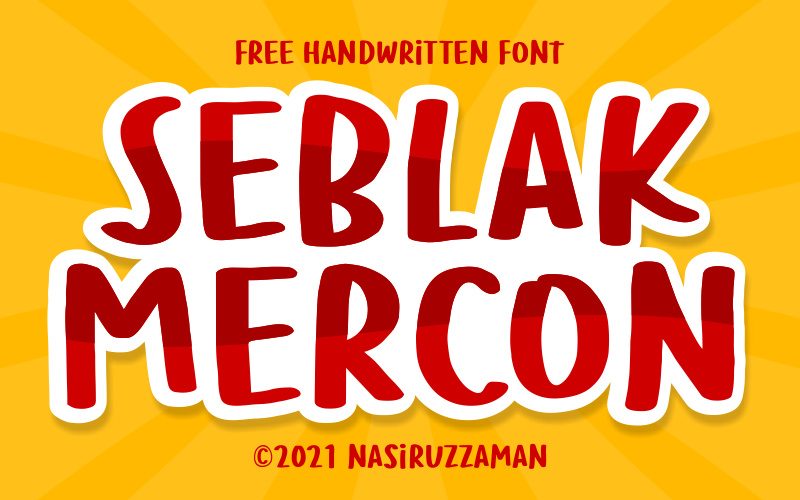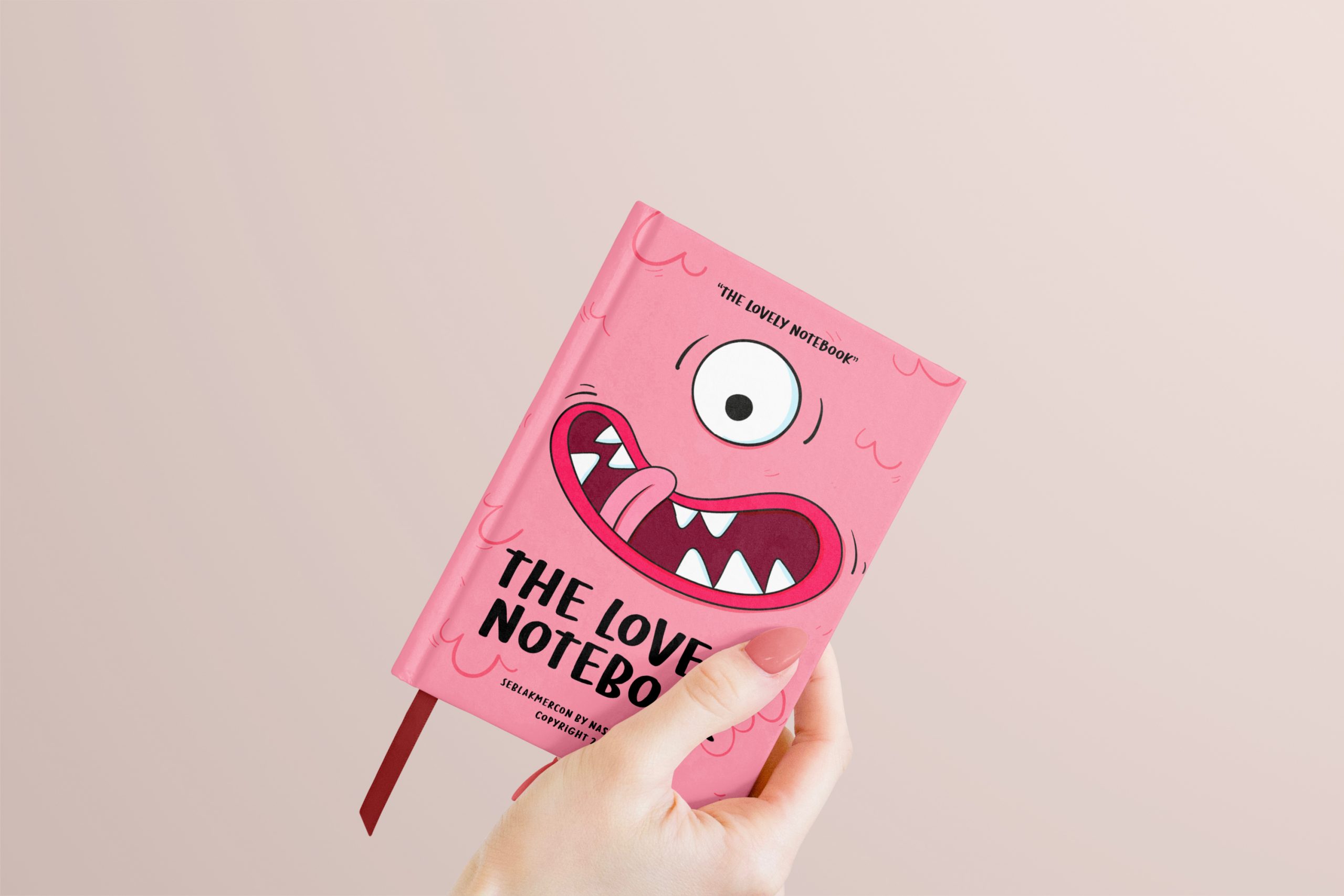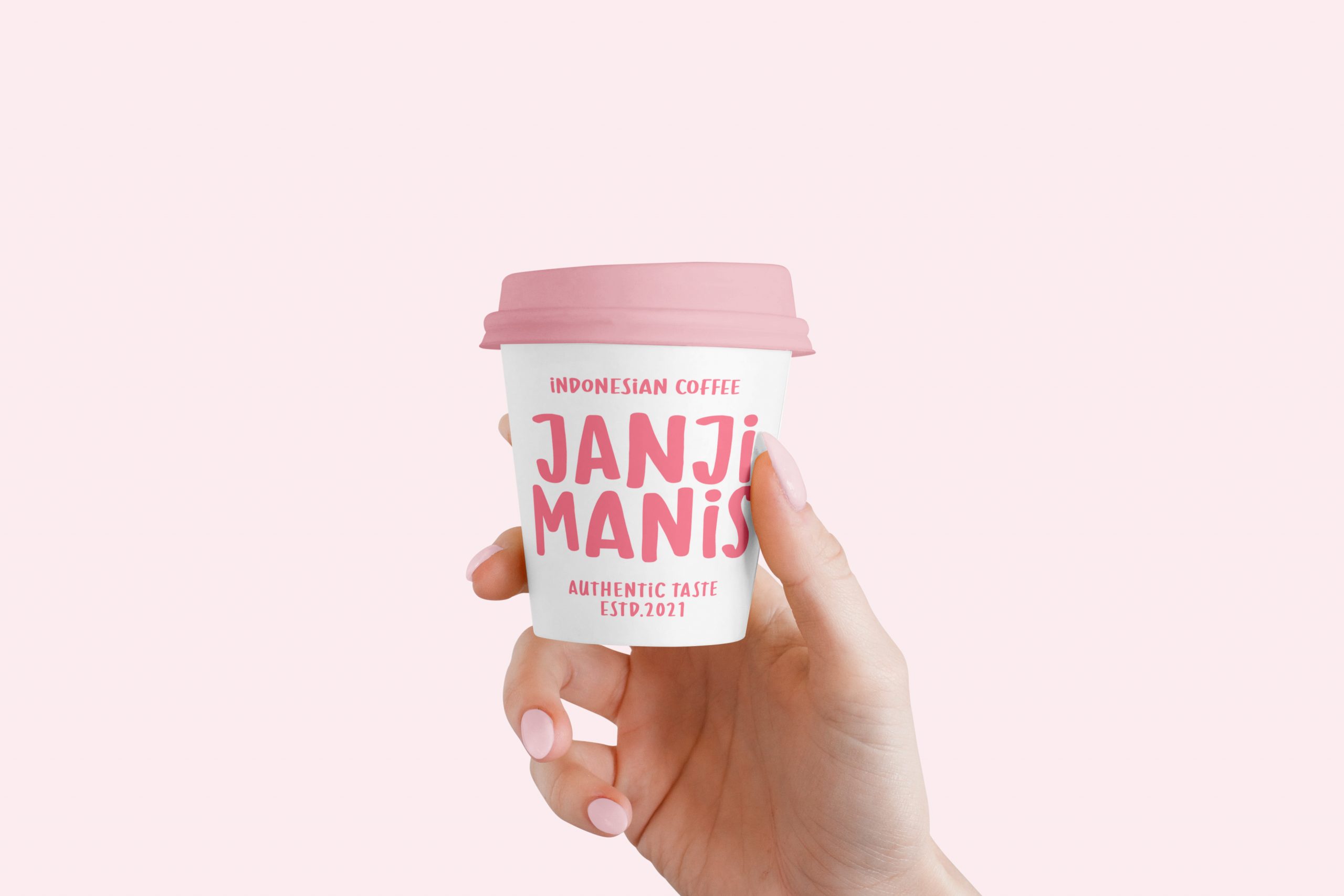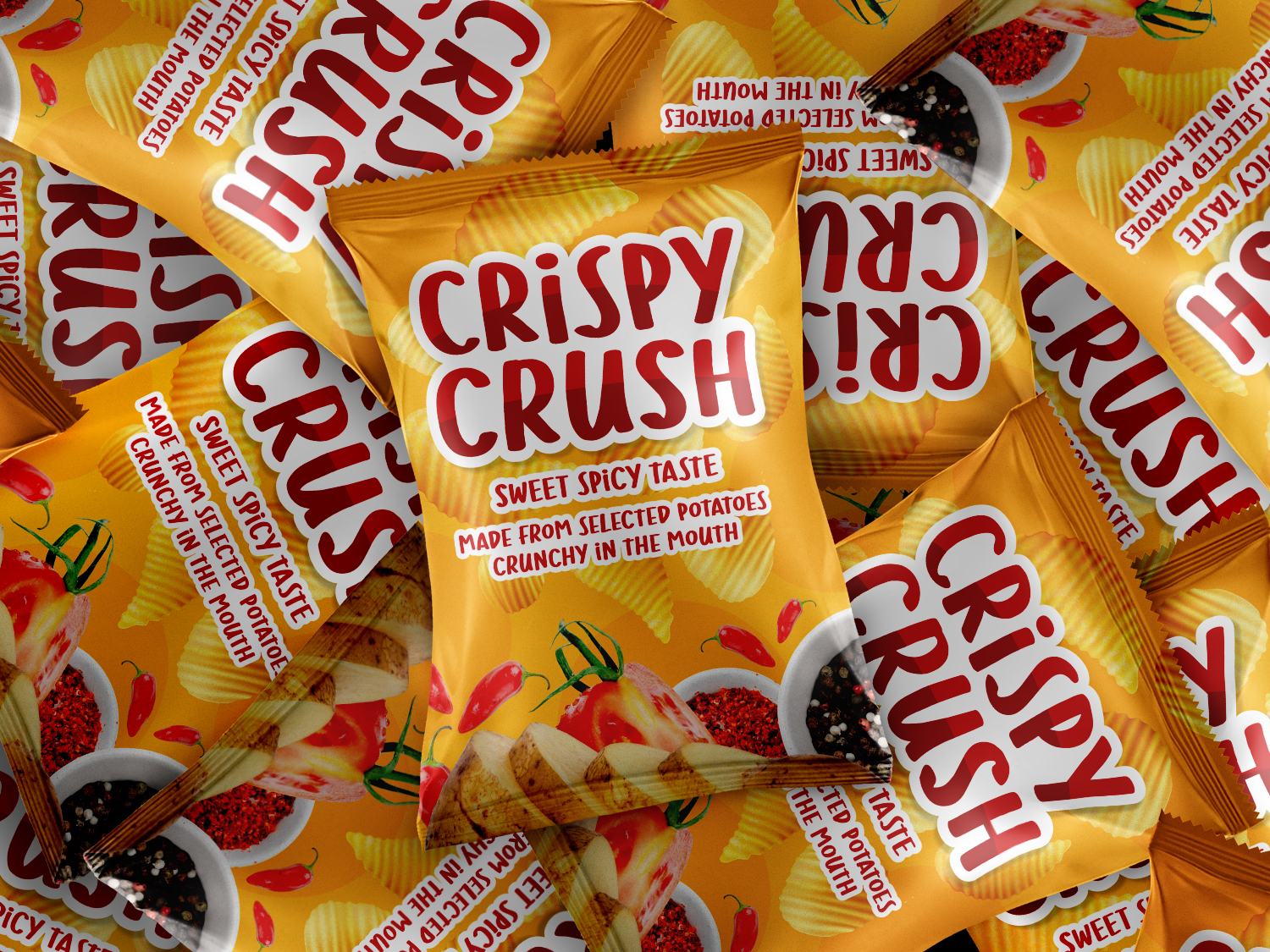
Seblak Mercon Font
Seblak Mercon Display Font
This is a beautiful Display tpeface. It’s perfect for adding a graceful feel to any design project. Seblak Mercon is perfect for branding projects, logo, wedding designs, social media posts, advertisements, product packaging, product designs, label, photography, watermark, invitation, stationery and any projects.